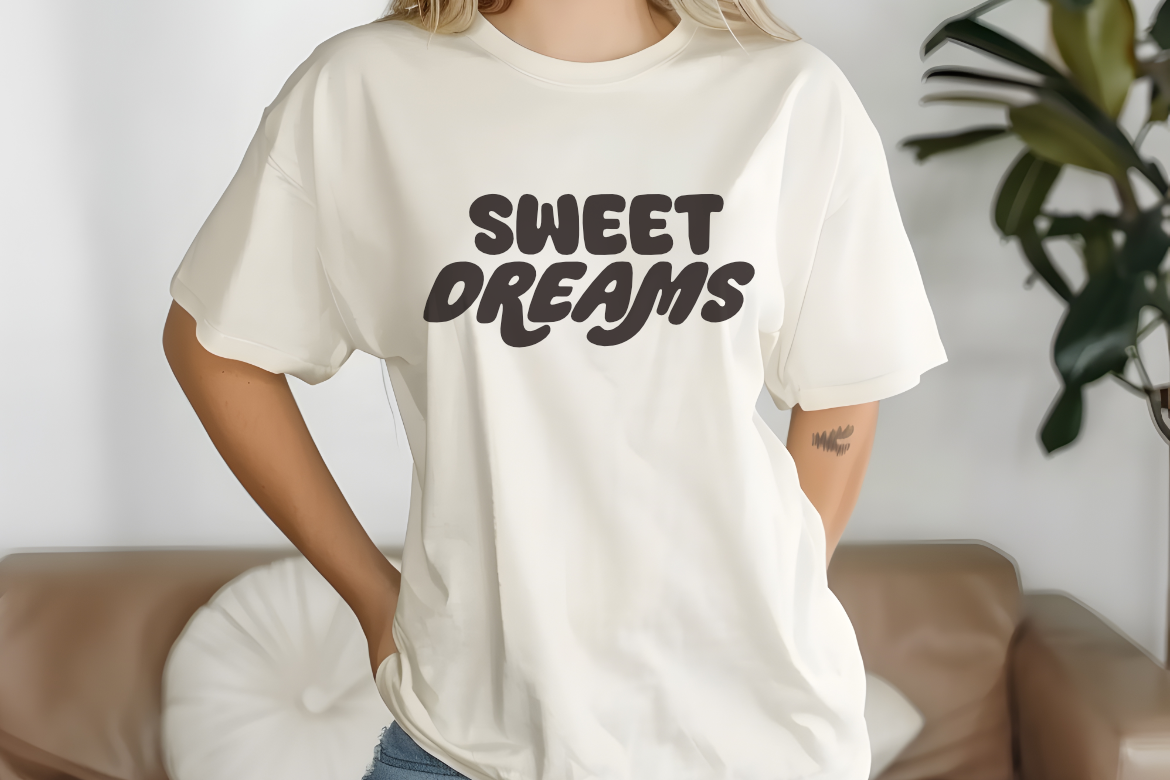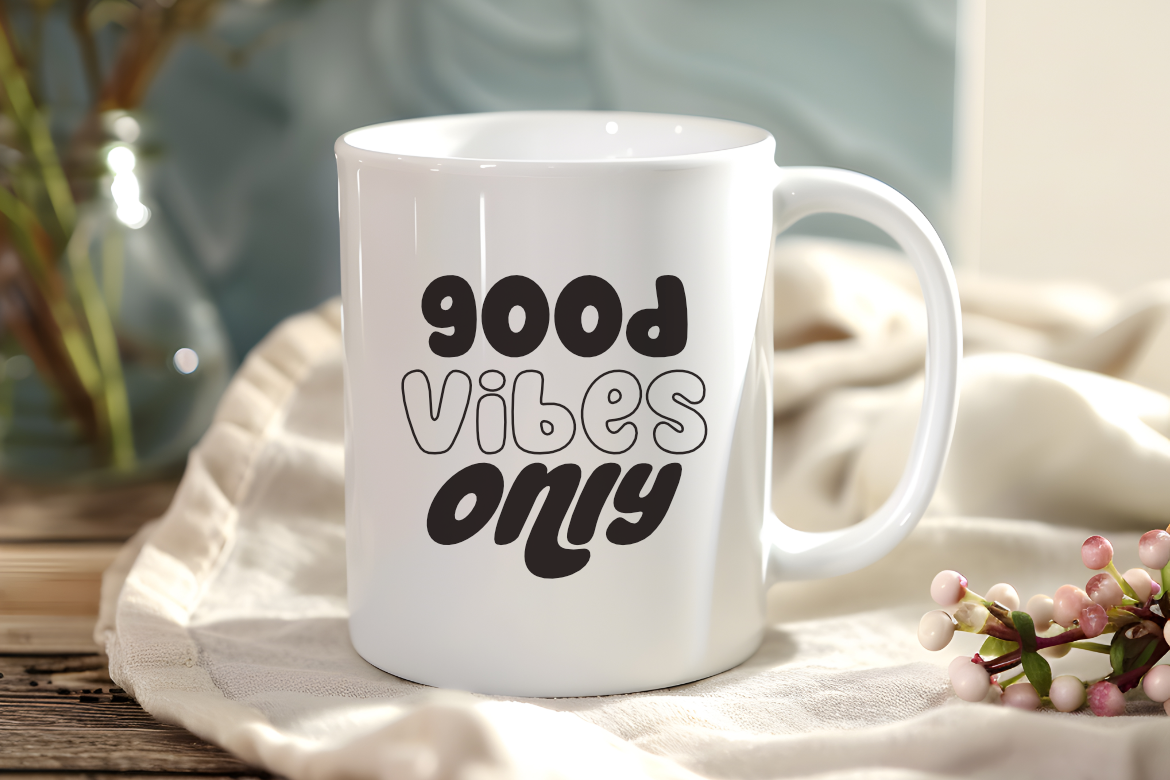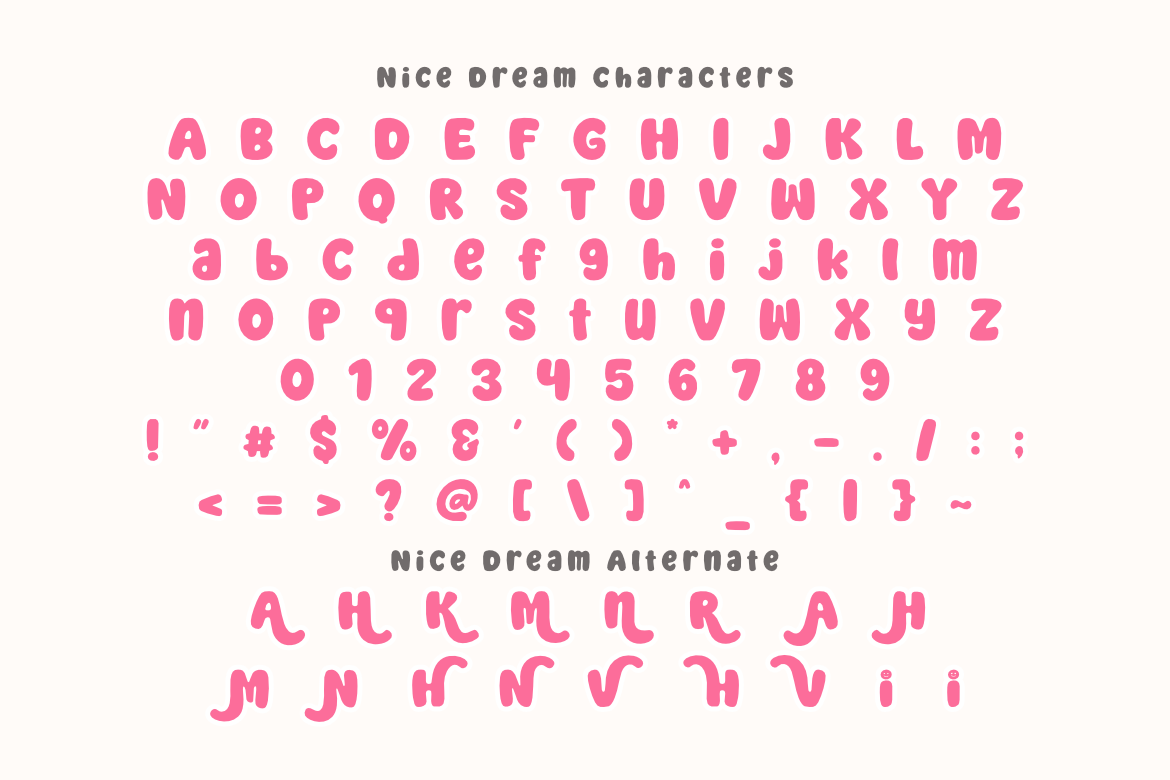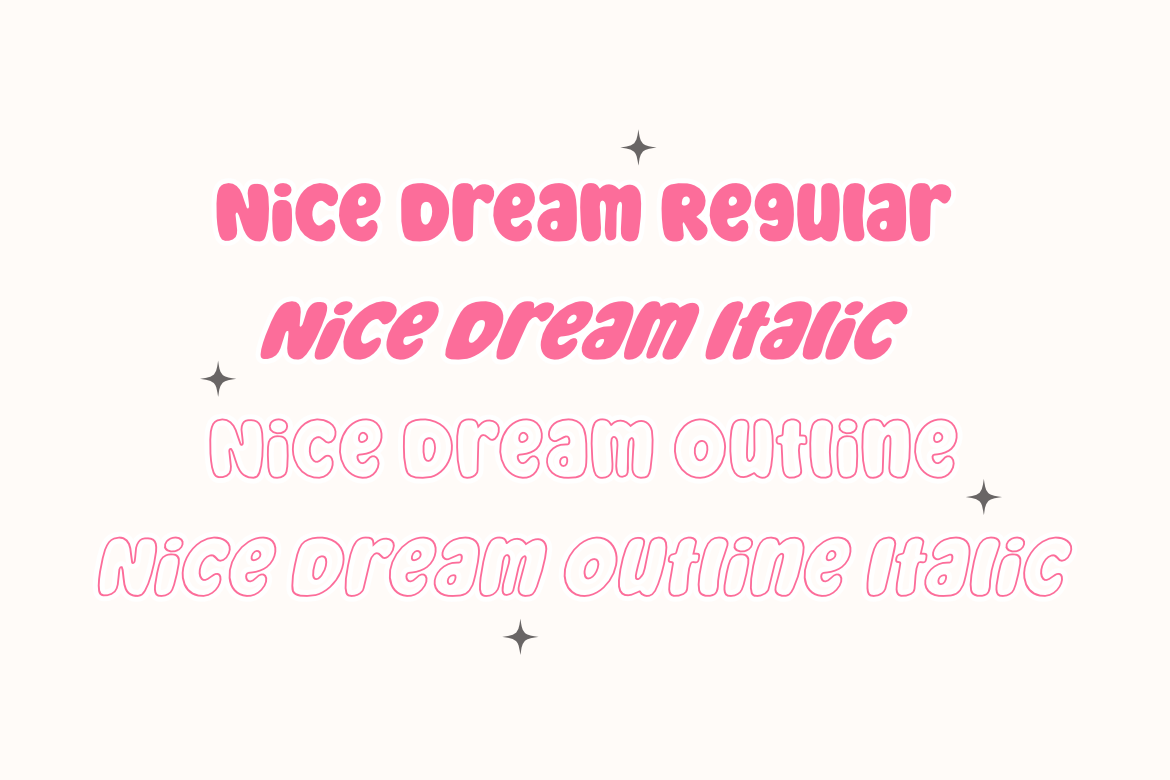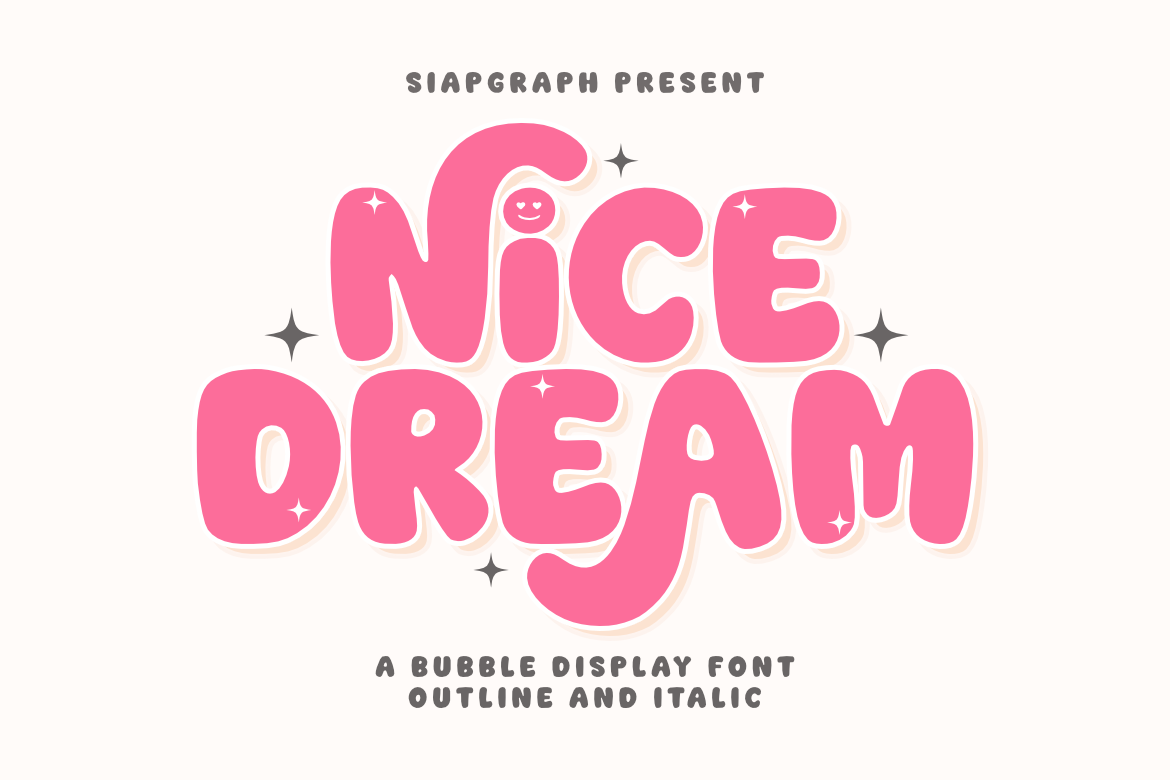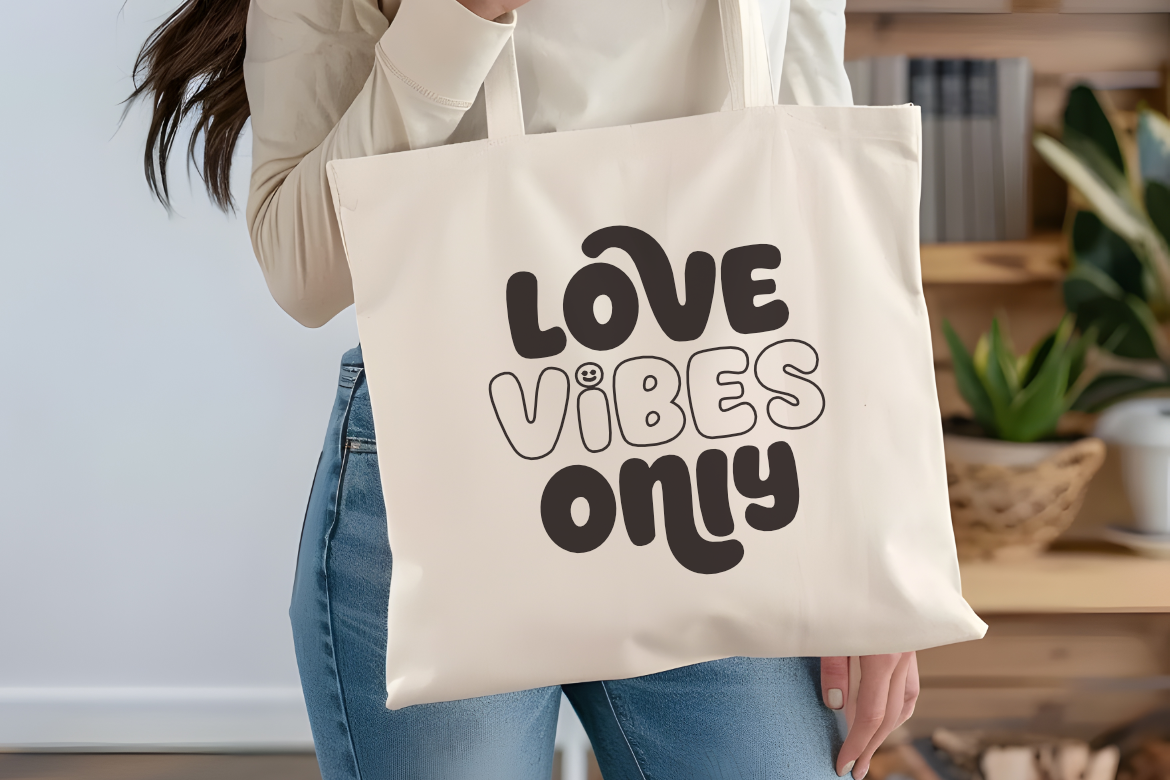
Nice Dream - Cute Bubble Font for Cricut and Sublimation
Bring your ideas to life with Nice Dream, a charming and cute bubble display font that exudes playfulness! Its soft curves and bold appearance are perfect for creating eye-catching headlines, posters, social media graphics, and branding. Add a dreamy touch to your designs with this delightful font that’s both fun and versatile.